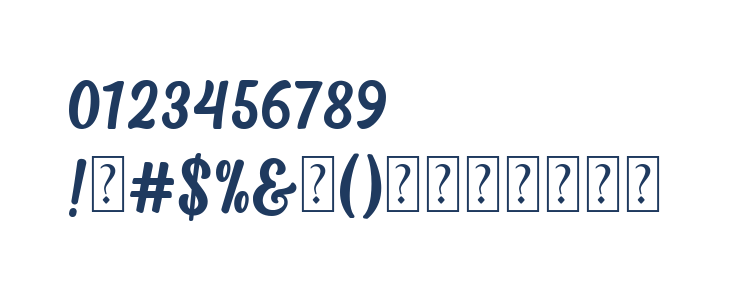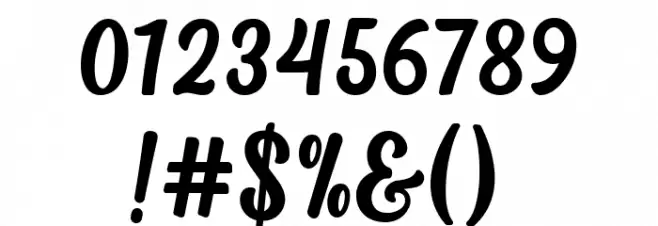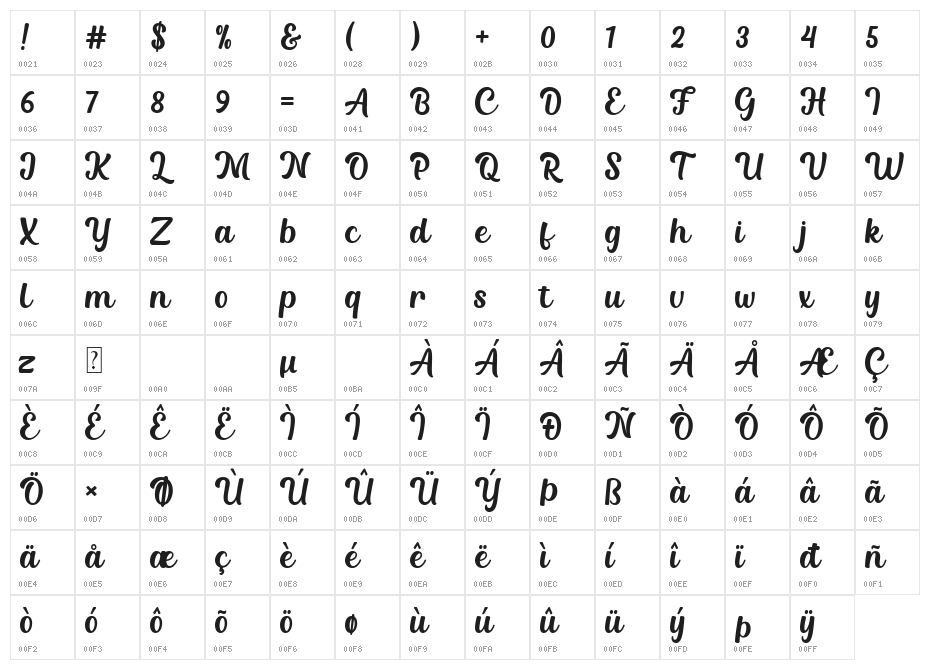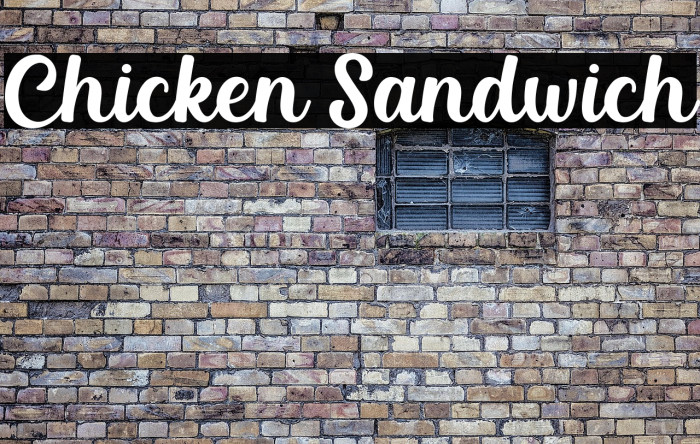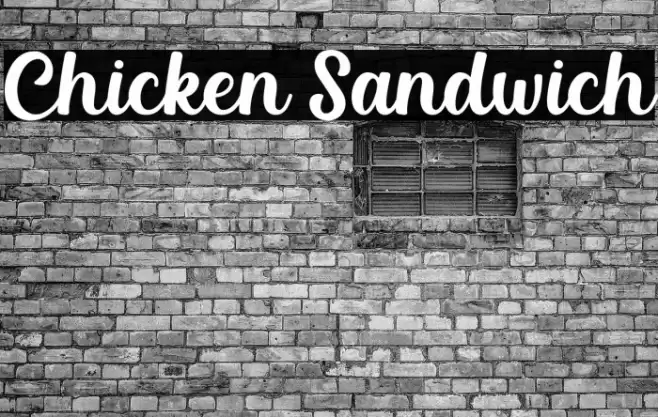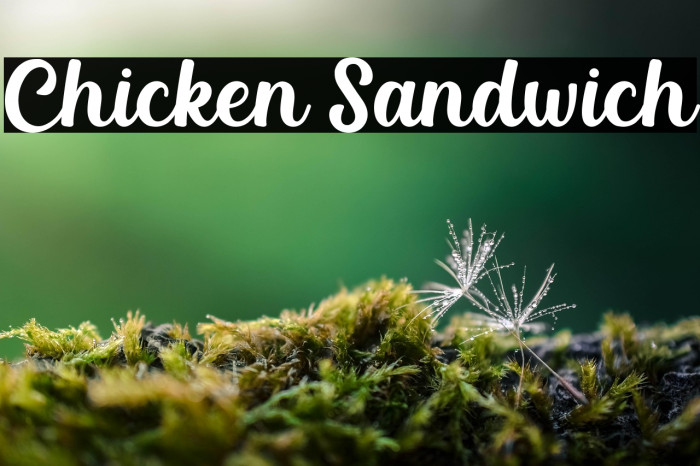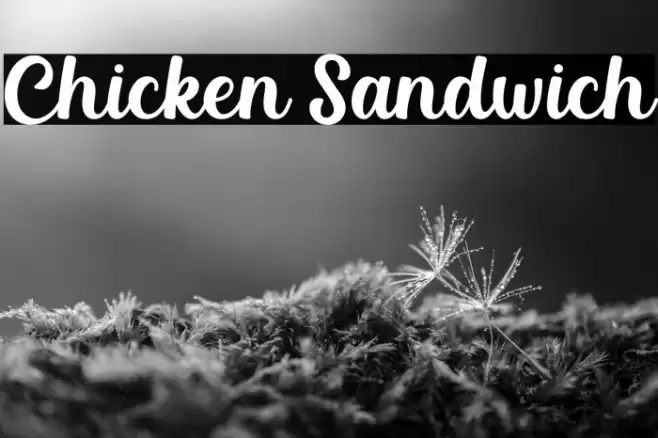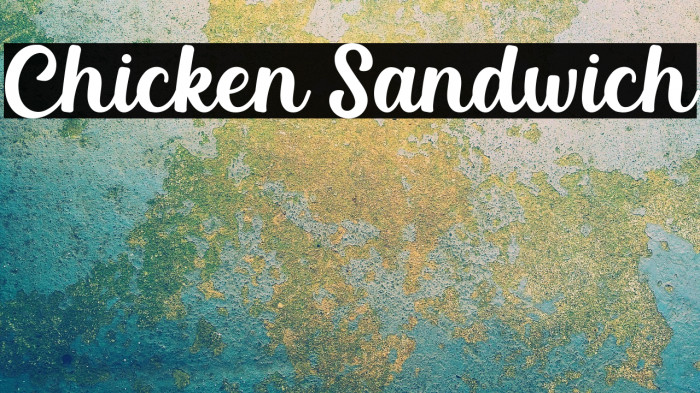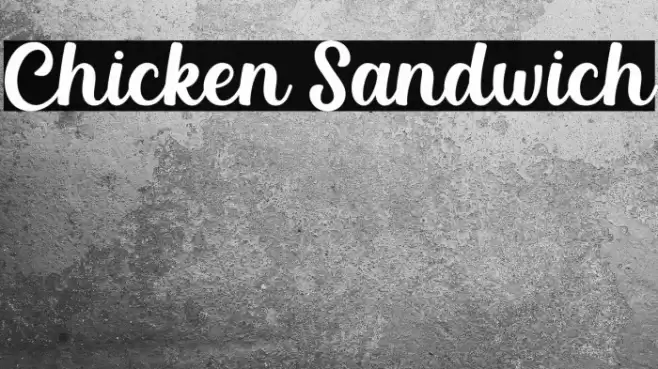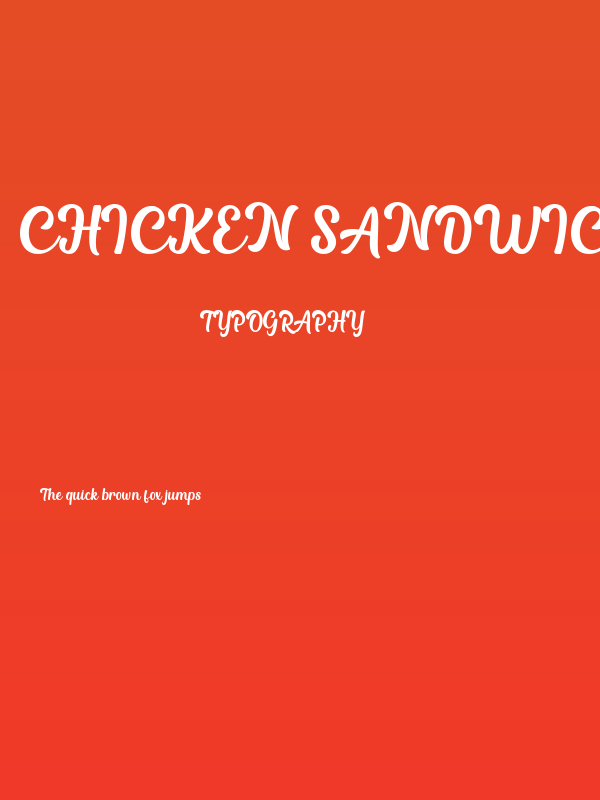
Chicken Sandwich Font
Chicken Sandwich Description
This font features a playful and bold script style, characterized by its flowing, cursive letters that maintain a consistent thickness throughout. The uppercase letters are elegantly curved, with a slight slant that adds a dynamic feel. The lowercase letters are rounded and connected, enhancing the fluidity of the text. Numbers and special characters are designed to match the overall style, with smooth curves and a cohesive appearance. The font exudes a friendly and approachable vibe, making it suitable for a variety of creative applications.
| Proposed Projects | Ideal for branding, packaging, invitations, and social media graphics. |